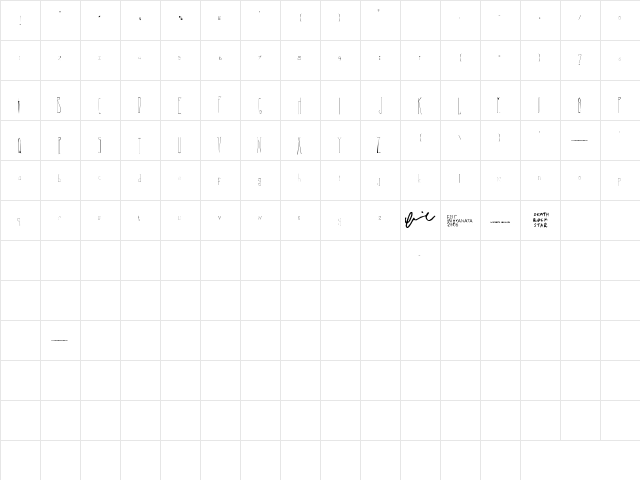
Correy's Regular
Design Context for Correy's Typeface
Correy's offers clean, dependable letterforms without strong stylistic allegiance, making it a practical choice for designers who need flexibility.